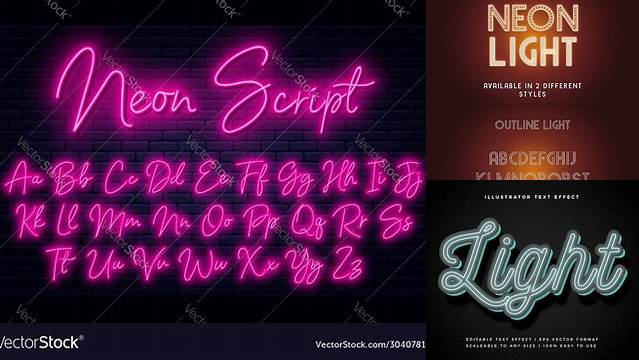
Free Neon Script Fonts: Download & Shine!
Title: Free Neon Script Fonts: Download & Shine!
Neon Light Script Font Free, what a fantastic combination! It's like having the vibrant energy of a classic neon sign right at your fingertips, ready to be used on your designs without costing you a dime. If you're a designer, a blogger, or even just someone who loves cool fonts, then you're in the right place. We're diving deep into the world of free neon script fonts, exploring where to find them, how to use them, and how to make your designs pop. Let's get started, shall we?
Finding the Perfect Free Neon Script Font: Where to Look and What to Consider
Creating Stunning Designs with Neon Script Fonts: Tips and Tricks
Once you've got your hands on a fantastic Neon Light Script Font Free, the real fun begins: designing with it! Let's talk about how to make the most of your neon script fonts to create designs that truly shine. First, consider the color palette. Neon fonts are all about vibrant, eye-catching colors. Think bright pinks, electric blues, vivid greens, and sunny yellows. But remember, you don't always have to go full-on neon. Play around with gradients and glows to achieve the neon effect without being overwhelming. Next, think about the background. A dark background often works best for neon fonts. This makes the font pop and creates a striking contrast. Black, dark gray, or navy blue are excellent choices. But don't be afraid to experiment. A slightly textured background can add depth and interest to your design. Also, think about the layout. Neon fonts are often best used for headlines, titles, and short phrases. They can be challenging to read in large blocks of text. Think about using the font to create emphasis and draw attention to your design's most critical parts. Lastly, get creative with effects. Adding a glow or an outline to your neon script font can take your design to the next level. Many design software programs offer these effects, allowing you to customize the look of your font.
Color Combinations that Make Neon Fonts Pop
Alright, let's talk about color combinations. Finding the right color palette can make or break your neon font design. A Neon Light Script Font Free can be amazing, but the colors you pair with it are super important. First up, the classic neon-on-black. This is a tried-and-true combo for a reason: It just works! Choose a bright neon color and place it on a stark black background. The contrast will make your font pop instantly. Next, neon on a dark background. Think of a deep navy blue, dark gray, or even a rich purple background. Choose a complementary neon color that contrasts well. For example, a vibrant yellow neon against a navy blue. If you want to try something a little bolder, consider pairing neon with another bold color. For example, a bright pink neon font against a deep teal background. This combination screams energy and excitement. When you pair your neon script font with a bright, complementary color, make sure there's enough contrast, so the font is easy to read. Also, consider monochromatic color schemes. You can use different shades of the same color to create a cohesive look. Start with a neon color, then find darker shades for your background and supporting elements. This can be a very sophisticated look. Remember, the key is to experiment and see what works best for your specific design. Don't be afraid to try different combinations!
Layout and Composition Best Practices for Neon Fonts
Let's get into some layout and composition best practices. A Neon Light Script Font Free can be a powerful tool, but only if you know how to use it effectively. The goal is to create designs that are both visually appealing and easy to read. Firstly, think about hierarchy. Neon fonts are great for headlines and titles, but they're not always the best for large blocks of text. Use your neon script font to draw attention to the most important elements, like your headline or call to action. Then, use a more readable font for your body text. Next, consider the spacing. When using a Neon Light Script Font Free, make sure there's enough space around the text. Give it room to breathe. This will make it stand out and prevent it from feeling cluttered. Use padding and margins to create visual space. Then, think about alignment. Experiment with different alignments. Centering the text can create a balanced look, while left or right alignment can add a sense of structure. The alignment you choose will depend on your design's overall style. Also, make sure your design is balanced. Use elements like images, icons, and other text to create a visually appealing composition. Consider the rule of thirds to guide your layout. Lastly, keep it simple. Neon fonts are already attention-grabbing. Avoid overcrowding your design. Less is often more. A clean, uncluttered layout will help your neon font shine. Make sure to put the focus on the font and its message.
Neon Script Font in Action: Real-World Examples and Inspiration
Alright, let's get inspired! Let's look at some real-world examples of Neon Light Script Font Free designs that really shine. We'll explore how these fonts are used in different contexts. Think about businesses using them for their logos, websites, social media, and other creative branding projects. First, let's consider logos and branding. Many businesses use neon script fonts to create a unique and memorable brand identity. Think of a trendy bar using a neon script font for its logo or a gaming company using a bold neon font to create excitement. A well-designed logo with a Neon Light Script Font Free can be incredibly impactful. Next, let's look at website design. Neon fonts can be used to create eye-catching headlines and calls to action on websites. Think about a website for a music festival using a neon script font to highlight the event's name or a clothing brand using a neon font to create a vibrant, youthful look. Remember that you can create a visually appealing and user-friendly website with neon script fonts. Next, consider social media graphics. Neon fonts are perfect for creating engaging social media posts. Think about a travel blogger using a neon font to create eye-catching text overlays on their photos or a food blogger using a neon font to promote a new recipe. Neon fonts can significantly increase your social media engagement.
Neon Sign Designs and Typography Inspiration
Let's dive into some specific examples of neon sign designs. These can provide excellent inspiration for your Neon Light Script Font Free designs. First up, classic neon signs. Think of the iconic neon signs you see in cities worldwide: a bar, a restaurant, or a vintage shop. Take note of the fonts, colors, and overall style. Pay attention to how the font is used in context. Is it a single word, a phrase, or a longer message? How does it interact with the background and other design elements? Also, consider how the neon sign is lit and positioned. This will help you understand how to create a similar effect in your digital designs. Next, let's look at modern neon signs. Many contemporary designers use neon signs to create stylish and unique designs. Think of a modern cafe using a neon sign to showcase its name or a creative studio using a neon sign to create an inspiring atmosphere. Look at the fonts, colors, and designs. What makes them stand out? How do they reflect the brand's identity? Then, also consider the use of neon in different industries. The fonts are used in various fields, from entertainment to fashion to technology. Pay attention to how these industries use neon to create engaging designs. Consider how the neon font fits the brand's message and overall style. Finally, don't forget the details. Observe the spacing, kerning, and other details of the font. This will give you a better understanding of how to use a neon script font effectively. When it comes to neon signs, the details matter!
Websites and Social Media Utilizing Neon Fonts
Now, let's look at some websites and social media accounts that effectively use Neon Light Script Font Free. These examples can provide a lot of inspiration for your projects. First up, let's explore websites. Some websites use neon fonts to create unique and captivating designs. See how the font is used to create a memorable user experience. The website might use the font for its logo, headlines, or call-to-action buttons. See how the font interacts with the website's overall style and message. Next, consider websites in specific industries. Check out websites for businesses in the entertainment, gaming, or fashion industries. These businesses often use neon fonts to create a visually appealing brand identity. See how they use neon fonts to attract their target audience and establish their brand image. Also, look at social media accounts using neon fonts. Many social media accounts use neon fonts to create eye-catching graphics and posts. Think of accounts for businesses, influencers, or artists. See how they use neon fonts to create engaging content and increase their social media engagement. Consider using neon fonts to enhance your social media presence and reach more people. Try to learn what works and what doesn't. Also, analyze the overall design of the website or social media account. How do the neon fonts fit the website's message and overall style?
Optimizing Your Neon Script Font Designs: Technical Considerations
So, you've chosen your font, created your design, and now it's time to optimize it! Let's talk about the technical aspects of using your Neon Light Script Font Free to make sure your designs look great everywhere. Firstly, file formats. The most common formats are PNG, JPG, and SVG. PNG is great for designs with transparency, while JPG is best for images. SVG is excellent for scalable vector graphics. Choose the format that best suits your design needs. Next, consider resolution. For print, aim for a high resolution (300 DPI). For digital, a lower resolution (72 DPI) is usually sufficient. Make sure your design looks sharp and clear regardless of its intended use. Also, think about color modes. When designing for print, use CMYK. When designing for digital, use RGB. This ensures that your colors will appear correctly on different devices and platforms. When designing for print, remember that colors may vary slightly depending on the printing process.
Font Size and Readability in Digital Designs
Let's dive into font size and readability. A good Neon Light Script Font Free is great, but it's useless if no one can read it! First, remember the importance of font size. Your font should be large enough to read easily on any device. Think about the different screen sizes your audience might be using. Test your design on various devices to make sure the font is readable. Make sure that your font is easy to read, regardless of the background color. This includes considering the font style, spacing, and contrast with the background. Also, consider the importance of contrast. Make sure there's a good contrast between the font color and the background color. This is especially important for neon fonts, which are typically bright. A black background often works best. Think about how the font appears in different contexts. Your font might look great on a desktop, but it may be harder to read on a mobile device. Test your design on different devices and adjust the font size, spacing, or other design elements as needed. Finally, keep it consistent. Use a consistent font size and style throughout your design. This will help create a more professional and cohesive look. Also, remember the importance of white space. This can make your design more readable and less cluttered. Make sure you get a readable font and test it.
Exporting and Saving Your Neon Font Designs for Various Platforms
Alright, let's talk about exporting and saving your Neon Light Script Font Free designs for different platforms. This is a critical step, and it can affect how your designs appear on various devices. First, consider the platform you're designing for. Different platforms have different requirements for image size, file format, and resolution. For websites, you'll need to optimize your designs for web use. This includes compressing your images to reduce file size without sacrificing quality. Use a tool like TinyPNG or ImageOptim. Next, consider social media. Each social media platform has specific image size requirements. Make sure your designs are correctly sized for each platform. Also, remember that different platforms support different file formats. For example, some platforms support animated GIFs, while others don't. Ensure your designs are compatible with the platform you're using. Then, also think about print. If you're designing for print, ensure your images are high resolution (300 DPI). Also, make sure you're using the correct color mode (CMYK). When you save your design, choose the appropriate file format for your needs. PNG is great for designs with transparency, while JPG is suitable for most photos. Remember the quality. Always review your designs on different devices and platforms to ensure they look as intended. Make adjustments as needed. Always export your designs for the desired platform.
Troubleshooting Common Neon Font Issues: Solutions and Tips
Even with the best Neon Light Script Font Free, you might run into some issues. Don't worry! Let's go through some common problems and solutions to make sure your designs are always top-notch. Firstly, font readability. This is a big one. The key is to ensure that the font is easy to read, regardless of the background color. Adjust your font size, spacing, and contrast. Experiment with different font styles. Secondly, image quality. Make sure your images are high resolution and look sharp and clear on all devices. Check your file format. Also, consider the image file size. This can affect the loading speed of your design. Minimize the file size by compressing your images without sacrificing quality. There can be a lot of issues. Let's see how we can handle them.
Fixing Readability Issues in Neon Font Designs
Alright, let's dive deeper into fixing readability issues. This can be a common problem with Neon Light Script Font Free designs, so we have to know how to tackle it. First, adjust the font size. Make sure your font is large enough to read easily on any device. Test your design on various devices. You might want to make the font larger for mobile devices. Then, consider the spacing. Make sure there's enough space between the letters and lines of text. This will improve readability. Adjust the spacing between the characters and lines. This also helps with readability. Then, check your color contrast. Make sure there's good contrast between the font color and the background color. A black background often works best for neon fonts. Avoid using similar colors. If you have to use the same color, make sure you test to see if your font is still readable. Also, experiment with different font styles. Some fonts are easier to read than others. Choose a font that is legible and visually appealing. Finally, remember that it's okay to use shadows. This will enhance the readability of your design.
Addressing Common Technical Glitches and Errors
Let's tackle some technical glitches and errors. Here are some troubleshooting tips to keep in mind. First, file format issues. Ensure you're using the correct file format for your desired platform. Make sure it supports the file format. Also, make sure your file isn't corrupted. Re-export it or try a different format. Secondly, color issues. Make sure your colors are rendering correctly on all devices. Check the color mode. Also, check your color settings. Then, check the resolution. Make sure your images have sufficient resolution. A low resolution might result in a pixelated design. Test your designs on various devices to ensure the image quality. Also, file size issues. Large file sizes can slow down the loading speed of your design. Compress your images to reduce their size without sacrificing quality. Use an image compression tool like TinyPNG or ImageOptim.
Advanced Neon Font Techniques: Taking Your Designs to the Next Level
Ready to take your neon font designs to the next level? Let's explore some advanced techniques to create stunning visuals that truly stand out. Think about adding animations. Animate the text or other elements in your design to create a dynamic effect. There are many tools to help you create animations. Consider adding realistic lighting effects. This can help create a more immersive and visually appealing design. Incorporate glows, shadows, and reflections to create a realistic neon effect. Experiment with unique typography. Don't be afraid to experiment with different fonts and styles. Try combining different fonts or adding custom effects to create a unique look. Explore different techniques. Let's get into them.
Adding Glows, Outlines, and Special Effects to Neon Fonts
Let's explore adding glows, outlines, and special effects to a Neon Light Script Font Free to take your designs to the next level. First, the glow effect. This is the classic neon look. Add a glow to your font to create a glowing effect. Many design software programs have a glow effect, but you can experiment with different glow settings. Next, the outline effect. Adding an outline to your font can create a striking effect. Experiment with different outline colors and widths. Try to create a contrast. You can create different looks by changing the colors. Then, the shadow effect. Adding a shadow to your font can add depth and dimension. Experiment with different shadow angles and blur settings. Add a reflection effect. This can create a more realistic neon effect. Add a texture effect. Textures can add another layer of interest to your design. Try adding a noise texture or a gradient texture. And, play with the special effects. Explore different effects that can enhance your designs.
Combining Neon Fonts with Other Design Elements and Illustrations
Let's explore how to combine a Neon Light Script Font Free with other elements and illustrations. This is a powerful way to create unique and visually appealing designs. First, think about pairing neon fonts with illustrations. Illustrations can add context and visual interest to your designs. Make sure that your style is aligned with the tone of your design. Then, consider layering fonts and design elements. Create depth by layering elements. This technique can create a unique visual effect. Use a combination of different fonts and other design elements. Add color and contrast to make sure your design elements create a strong visual impact. Use the effects. Think about using different effects. Use effects such as glows and shadows to enhance your design.
Legal Considerations and Best Practices for Using Free Fonts
Even with a fantastic Neon Light Script Font Free, you need to know the legal side. Let's talk about legal considerations and best practices when using free fonts. First, always read the font license. This is essential. Understand the terms and conditions of the font license before using it. Make sure you understand your rights and responsibilities. Next, check the license for commercial use. If you are using the font for commercial purposes, ensure the license allows it. Some fonts are only for personal use. Also, respect the designer's rights. Always give credit to the designer whenever possible. This is a sign of respect and can help the designer gain recognition. Lastly, keep track of your licenses. Keep a record of all the fonts you use. This includes the font name, the license type, and the download location. Be sure to comply with all licenses and rules.
Understanding Font Licenses and Copyright Regulations
Let's delve into font licenses and copyright regulations. Knowing your rights and responsibilities is critical. First, understand the different types of font licenses. Common license types include personal use only, commercial use, and open font licenses. Make sure that you understand the limitations of each license before using it. Then, consider copyright regulations. Fonts are protected by copyright laws. Make sure you comply with all copyright laws and regulations when using a font. This includes respecting the designer's rights and not infringing on their intellectual property. Also, avoid distributing or selling fonts without permission. Distributing or selling a font without permission is a copyright infringement. Be sure to only use fonts that are legally available. Also, understand the consequences of copyright infringement. Violating copyright laws can lead to legal action and financial penalties.
Giving Credit and Attributing Free Fonts Correctly
Let's talk about the important aspects of giving credit and attributing free fonts correctly. When you're using a Neon Light Script Font Free, giving credit is a crucial gesture, as it shows your respect for the designer and is often required by the license. First, how and where to give credit? This is often easy, but it also depends on the license. Include the font name and the designer's name in your design credits. You can add this information to the design itself or in the description. Also, provide a link to the designer's website or font download page. This will make it easier for others to find and use the font. If you're creating content for social media, tag the designer's account. This is a great way to give credit and help the designer gain recognition. Also, make sure to follow the designer's instructions. Designers often provide specific instructions for how to give credit. Check the font license or designer's website for any special instructions. If the license requires it, include the credit in a conspicuous place. Remember, giving credit is about supporting designers and acknowledging their work. Also, show your appreciation. A simple thank you to the designer can go a long way. Showing support is always a good thing!
Resources and Tools for Finding, Using, and Editing Neon Script Fonts
Alright, let's equip you with the resources and tools you need to find, use, and even edit a Neon Light Script Font Free! First, let's look at the font resources. We've already mentioned some great websites where you can find free neon fonts, such as dafont.com and fontspace.com. But here are some more. Also, Google Fonts is another great place to look for free fonts. Then, font management tools. Organize your fonts with font management tools. This will make it easier to find and use your fonts. Consider font editors. If you want to customize your fonts, consider using a font editor. Some font editors are free to use, while others require a subscription.
Best Websites and Platforms for Downloading Free Fonts
So you're ready to find your perfect Neon Light Script Font Free? Let's get you to the right resources. Let's start with websites like Dafont. They have a massive collection of free fonts, including a great selection of neon script fonts. Next, try Font Squirrel. They have a curated collection of high-quality, free fonts. The next is Google Fonts. They also offer a handful of free fonts that can be used for personal and commercial use. Lastly, we have BeFonts which is perfect for inspiration. They also provide a lot of fonts. Remember to always double-check the license before downloading and using any font!
Software and Apps for Editing and Customizing Fonts
Let's dive into the software and apps for editing and customizing your fonts. A Neon Light Script Font Free can be a great starting point, but sometimes you might want to make a few tweaks. First, the basics: You'll need a font editor. These are the tools that allow you to make changes to the font itself. Some popular options include FontForge and Glyphs Mini. FontForge is a free, open-source option. It's powerful but can have a steeper learning curve. Glyphs Mini is a more user-friendly, paid option. Next, to alter your design. Also, consider design software like Adobe Illustrator or Affinity Designer. These tools allow you to create designs using your fonts. They are also good for making basic adjustments to the font. For basic text effects like glows or outlines, you might be able to use the text tools in your design software. Also, for more advanced effects, you might need to use a photo editing software like Photoshop. If you want to make changes to the font style, then you can use a font editor. When editing fonts, be sure to respect the original designer's work. Remember to always review the license before making changes to the font!
Future Trends in Typography: What's Next for Neon Fonts
What's next for neon fonts? Let's look at the future trends in typography and how neon fonts are likely to evolve. First, expect more interactive and animated neon fonts. Designers are experimenting with animation and interactivity. We might see neon fonts that respond to user input. Next, consider more 3D neon fonts. This trend is becoming more and more popular. Designers will try to add more depth to the fonts. Also, consider more customization options. Designers will continue to explore and experiment with different fonts and effects. Lastly, look at the integration of neon fonts with AR/VR. As AR/VR technologies develop, we will see new and exciting ways to use neon fonts in virtual spaces. Remember, the key is to keep experimenting and trying new things.
The Evolution of Neon Font Styles and Techniques
Alright, let's explore the evolution of neon font styles and techniques. A Neon Light Script Font Free is never static. Let's see how it changes. First, consider more variations in the font style. Designers continue to experiment with different styles. We might see more retro neon fonts, more modern neon fonts, or even fonts that blend neon with other design styles. Next, new techniques. Designers are constantly trying new and creative techniques. We may see new ways to apply effects, textures, and gradients to neon fonts. Then, customization options. Designers will try to offer more customization options. We will see more options for different designs. Also, the rise of variable fonts. Variable fonts are a new and exciting trend. This can provide greater flexibility and customization. Finally, the continued influence of pop culture. Pop culture is the biggest inspiration. So it's going to be the same. These are fun times!
Integrating Neon Fonts with Emerging Technologies and Design Trends
Let's explore how neon fonts are integrating with emerging technologies and design trends. Technology is changing fast! First, consider the use of AR/VR technologies. Neon fonts can be used in virtual spaces and augmented reality. Designers are trying to explore the use of neon fonts in AR/VR experiences. Next, the rise of interactive design. Designers are trying to use interactive design. This will create an engaging user experience. They may use neon fonts for this. Then, look at the use of AI-powered design tools. AI tools will influence the design process. It could create new design options. Consider the use of motion design. Designers are experimenting with motion design. They may integrate neon fonts with motion graphics. These are just some examples. Remember that the possibilities are endless!